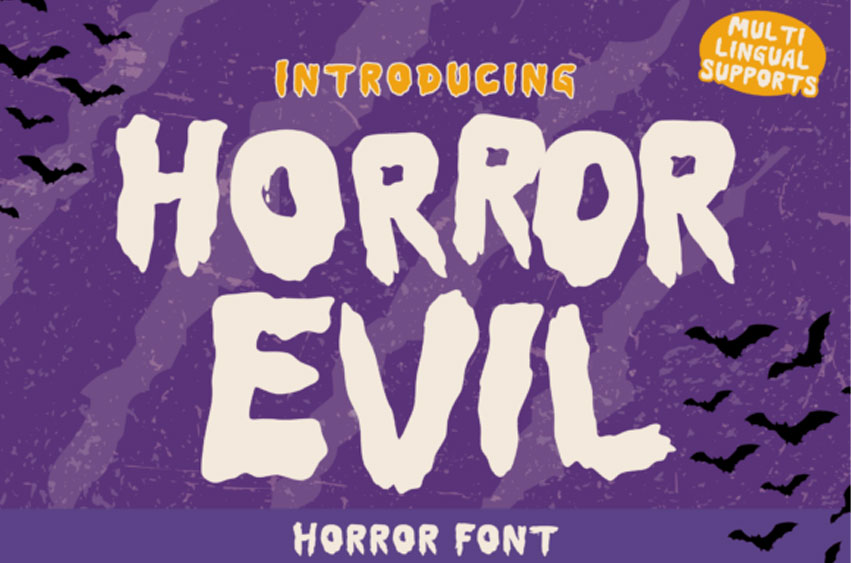
Horror Evil Font
Horror Evil Font is a chilling display font designed to evoke fear and tension. With jagged edges, irregular shapes, and a sinister style, it’s perfect for posters, Halloween themes, and thriller titles.
This typeface delivers a haunting atmosphere that instantly grabs attention and sets a dark tone.